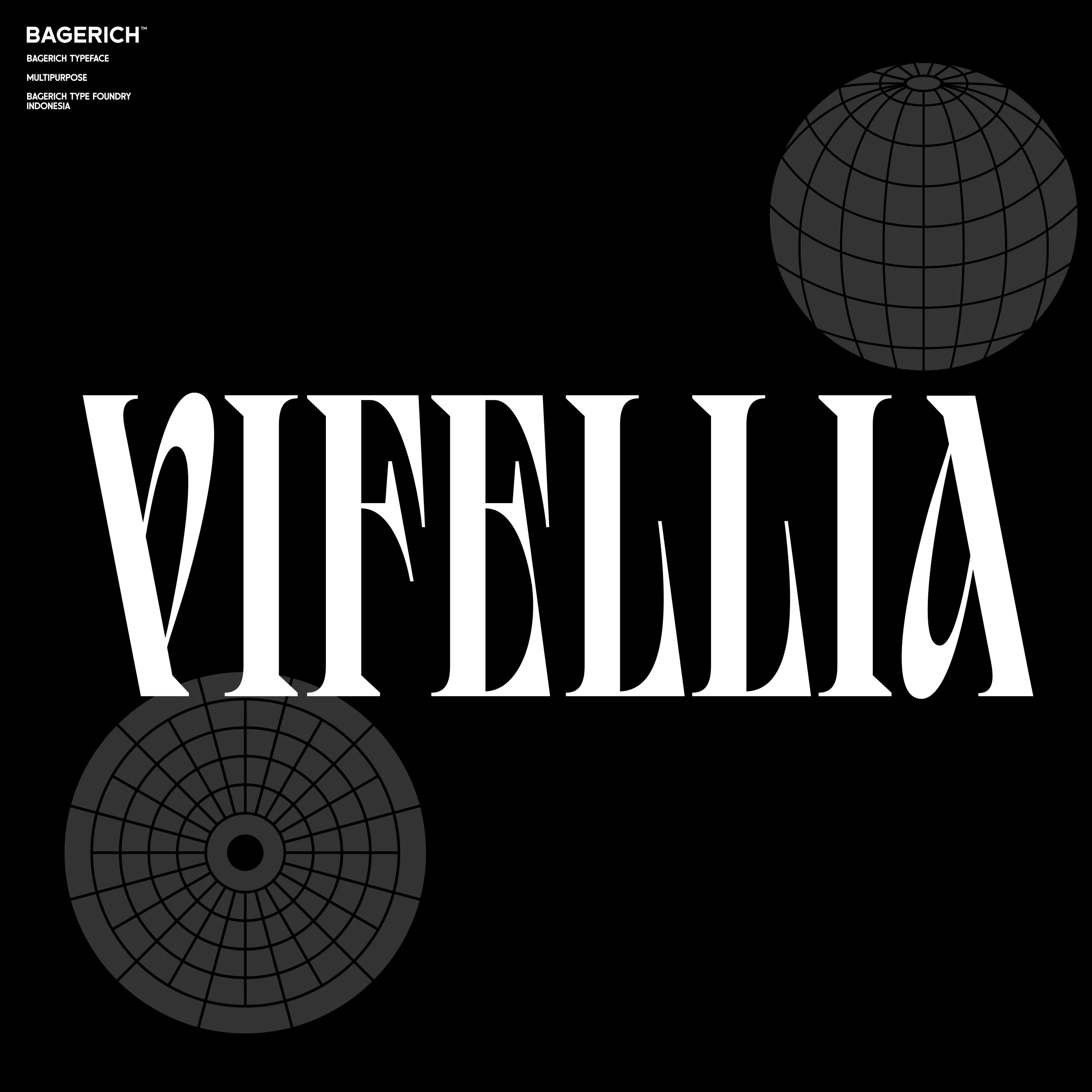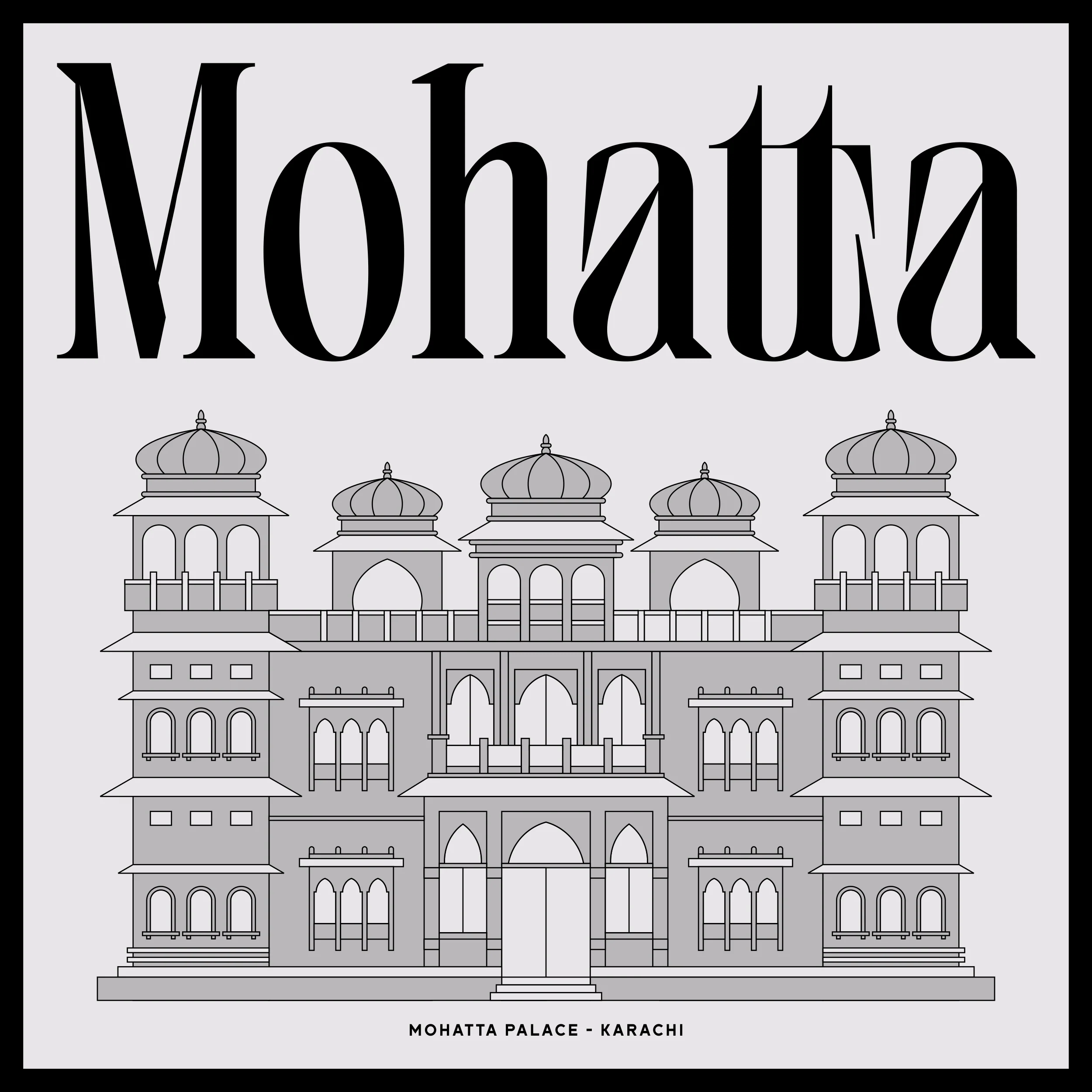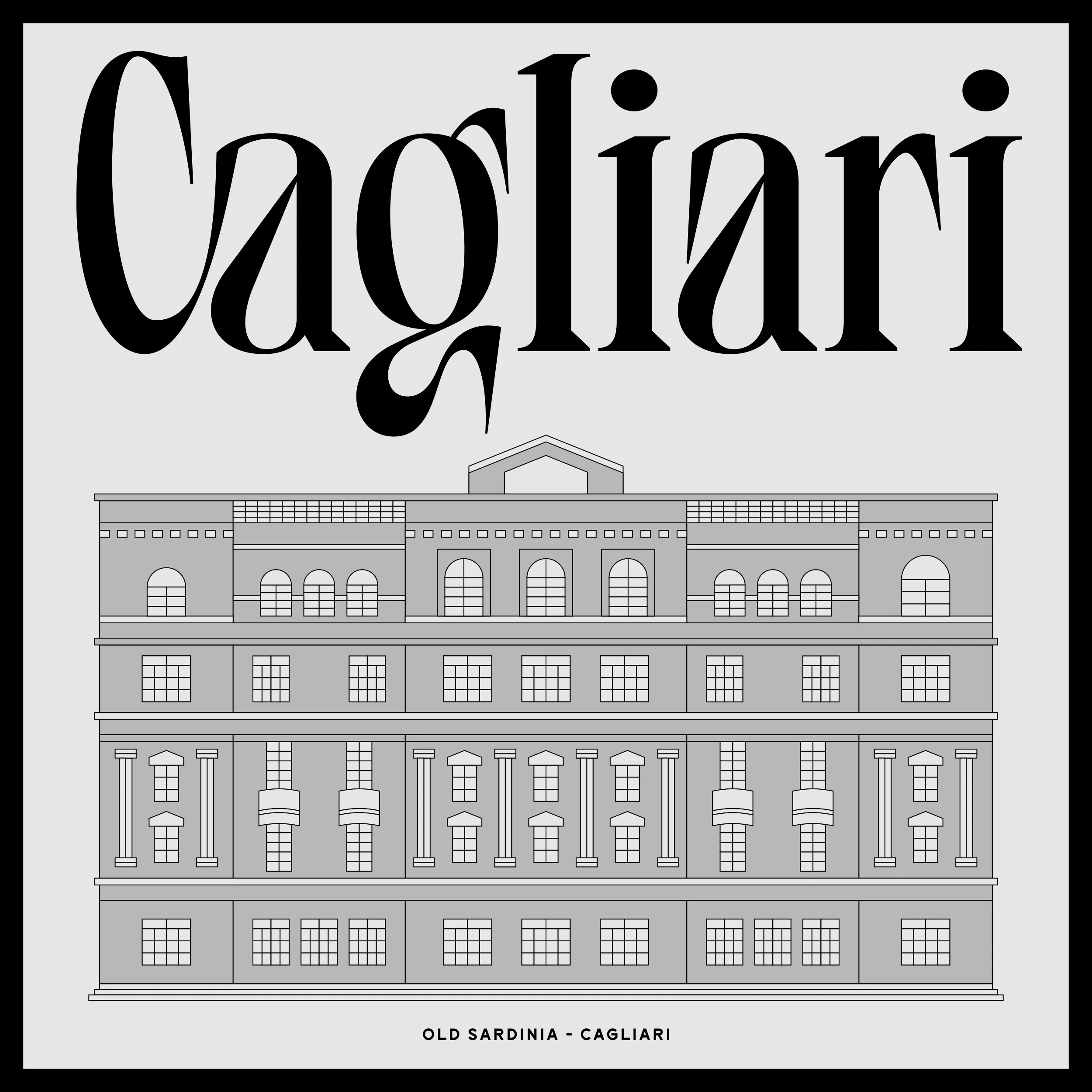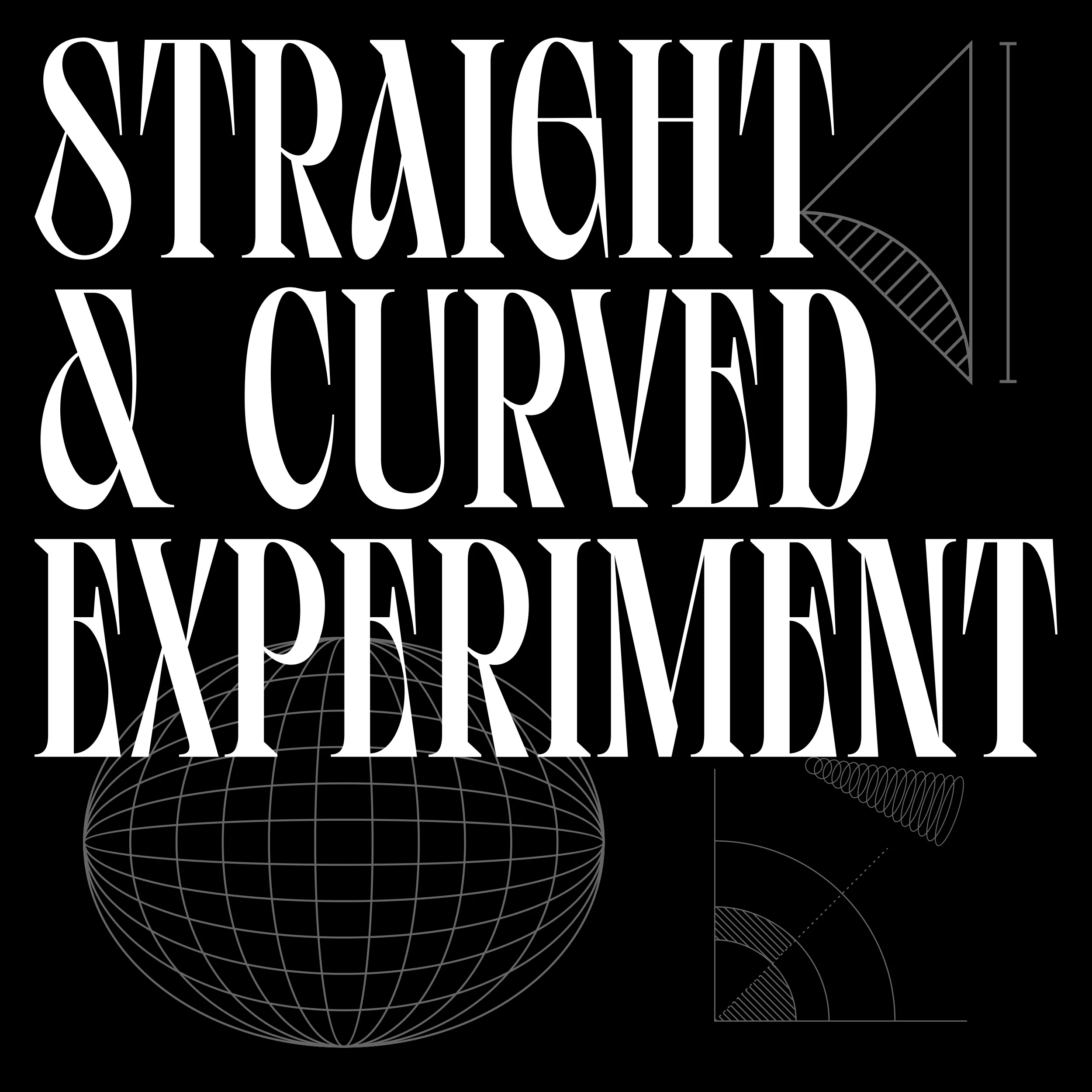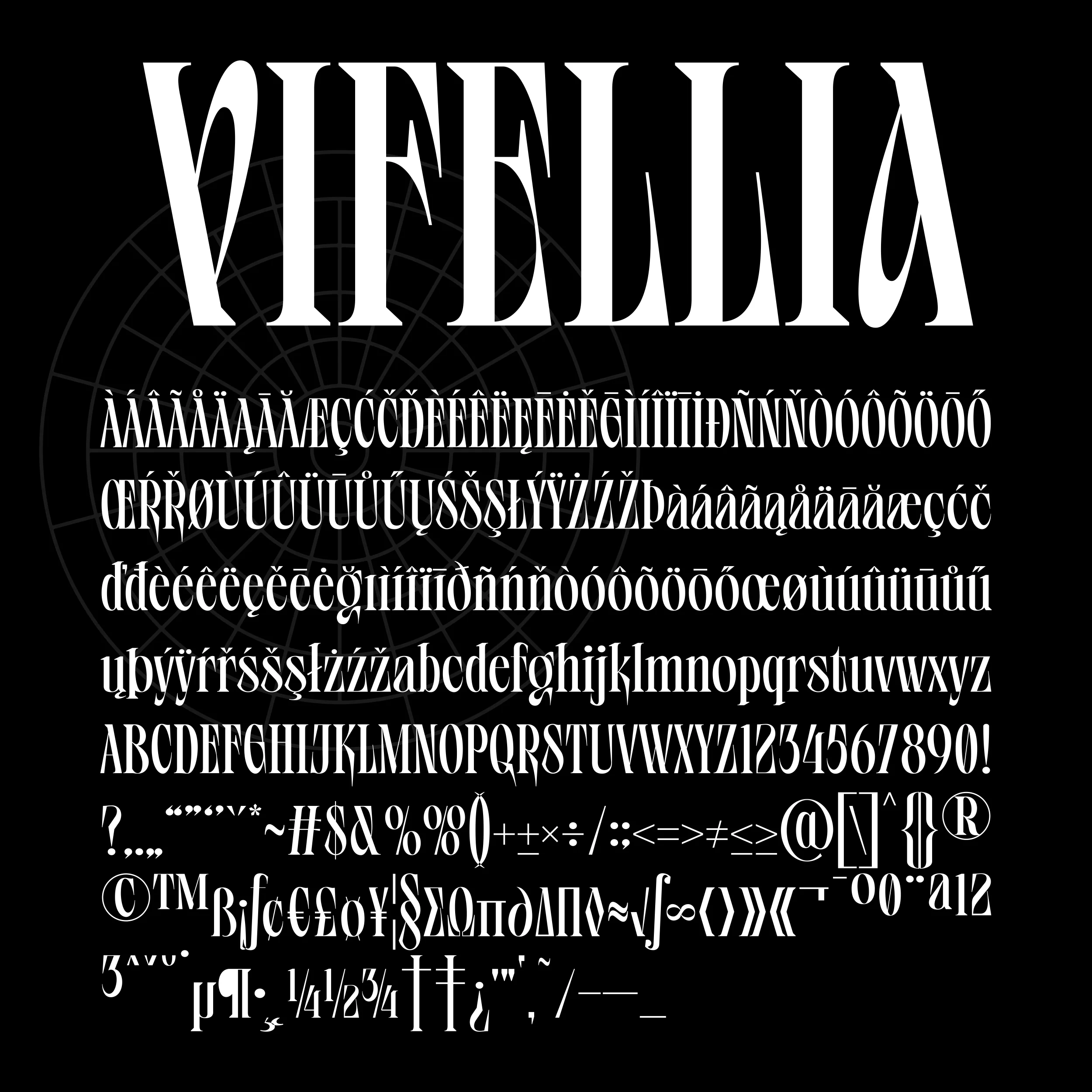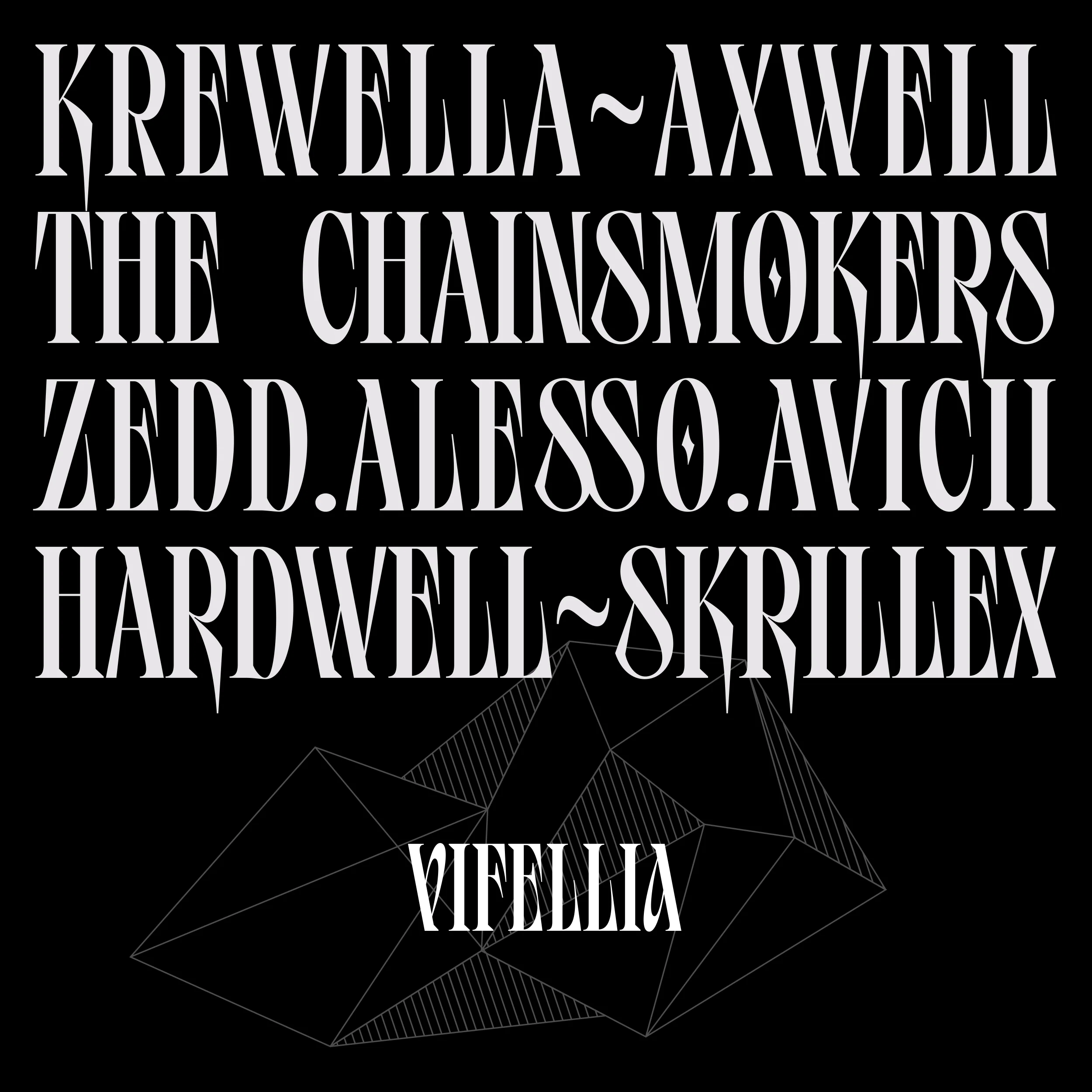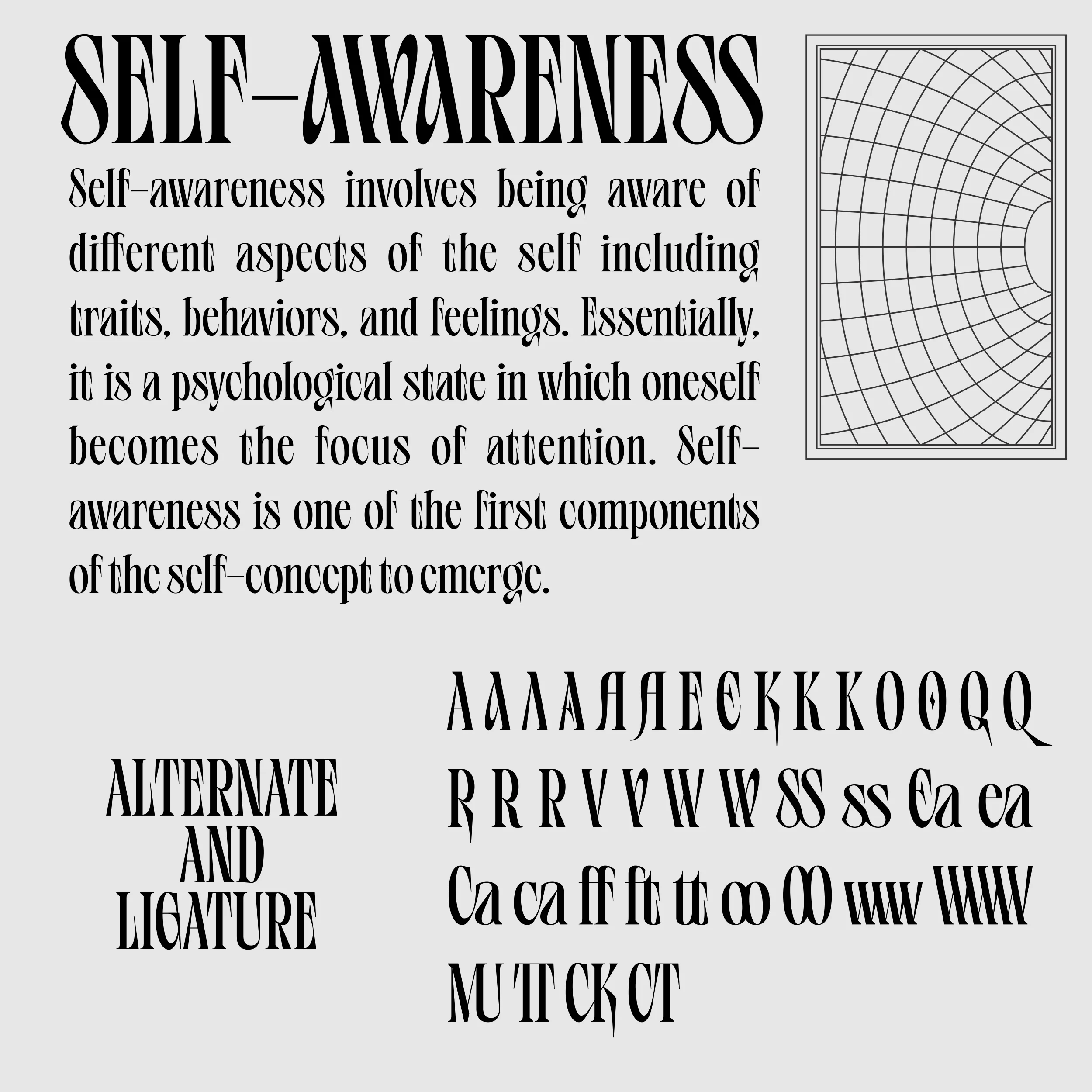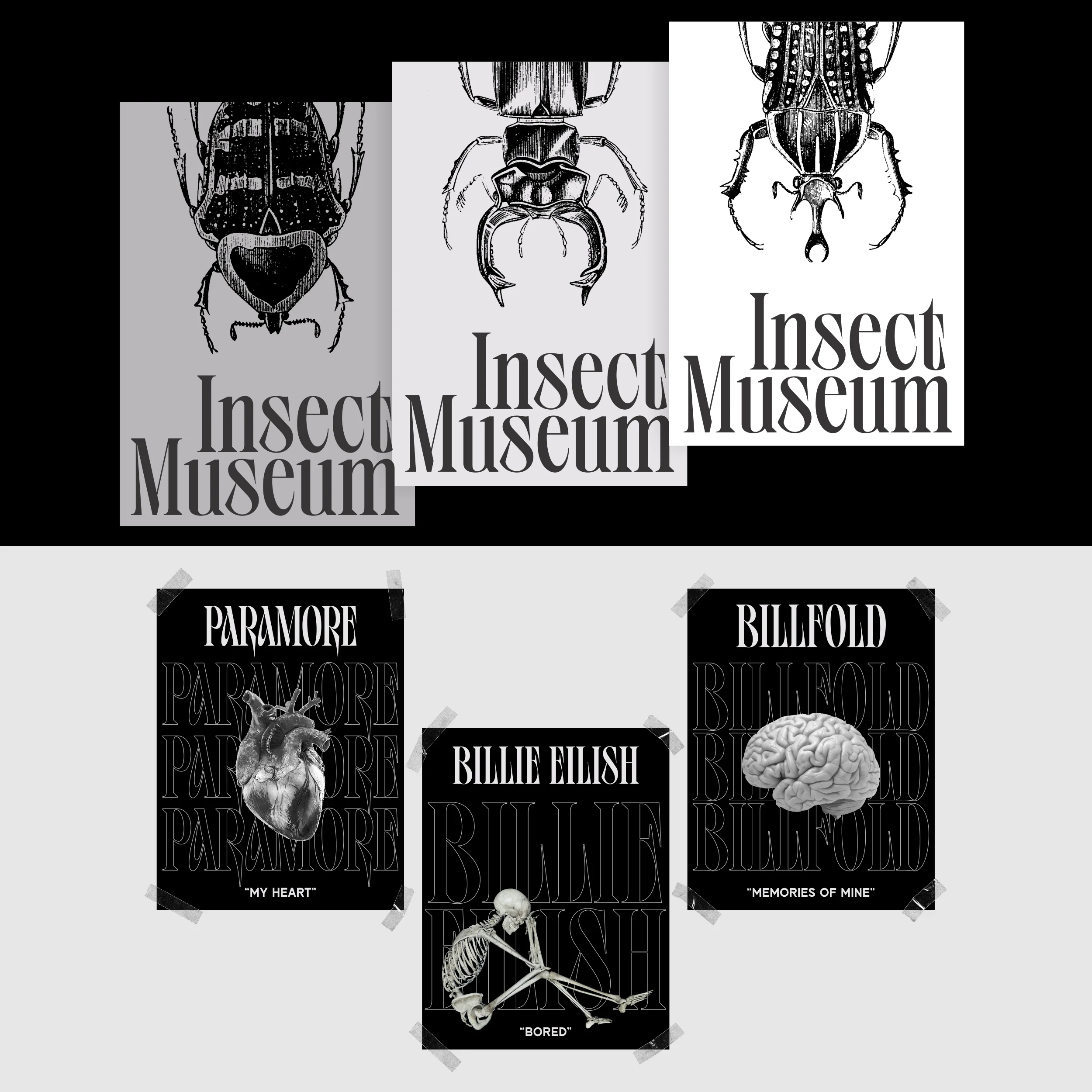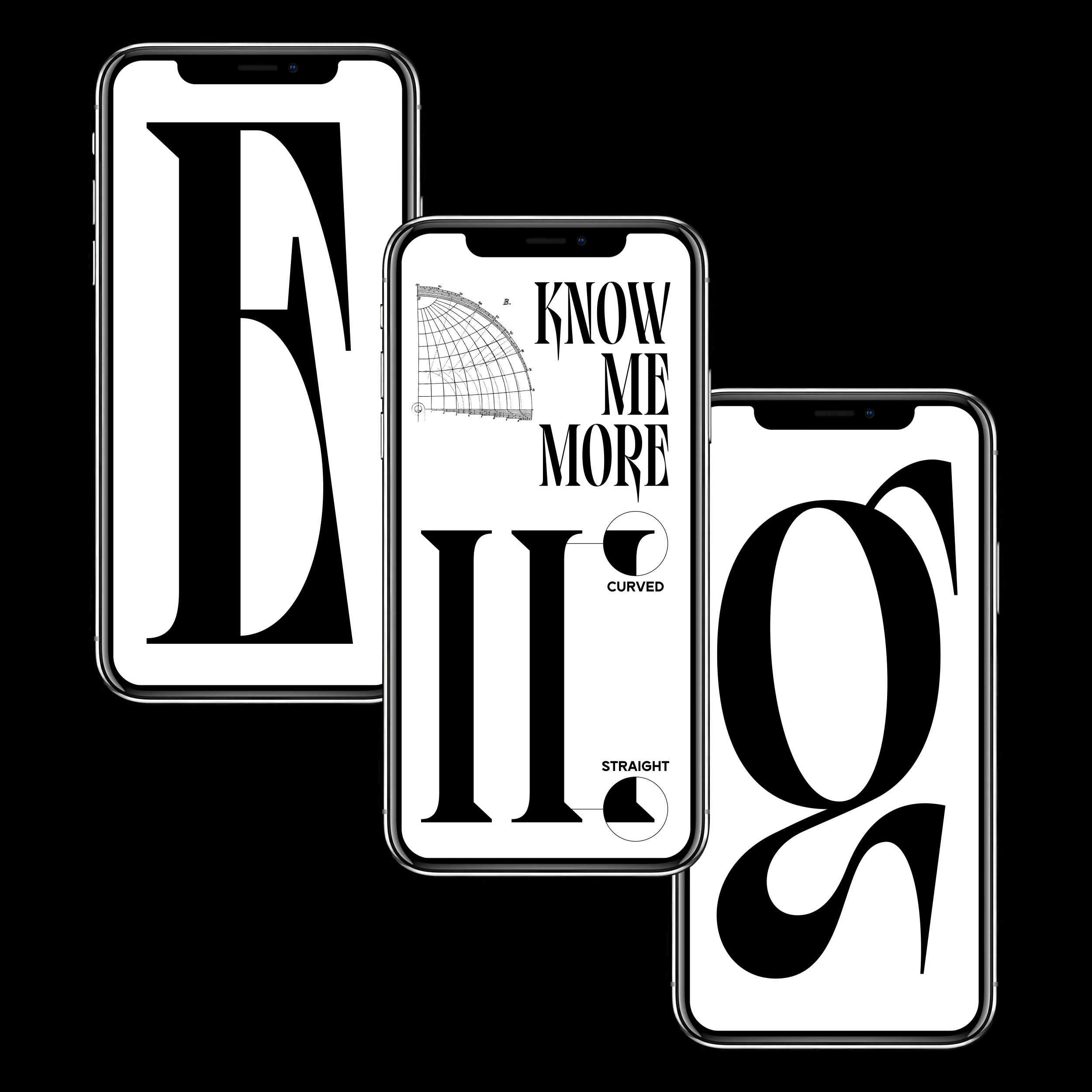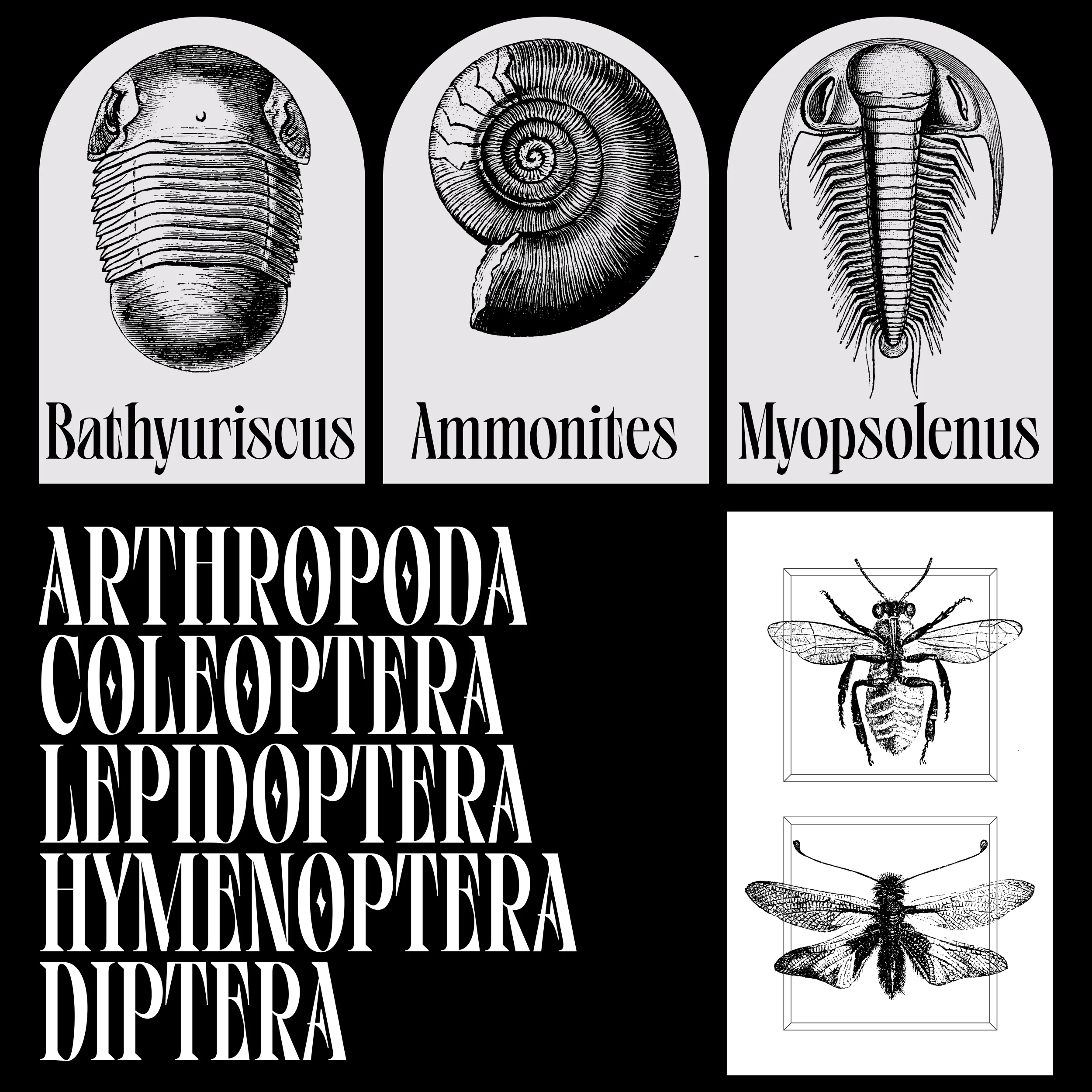
Vifellia
Vifellia is a versatile and unique serif typeface, a result of half side curved serif and half side straight serif experiment. Vifellia has a unique style with stylistic, alternates, ligatures and supports multilingual languages. Create a unique and beautiful logotype, use it as an elegant solution for your next magazine layout, or choose Vifellia for any graphics that require a sleek look.